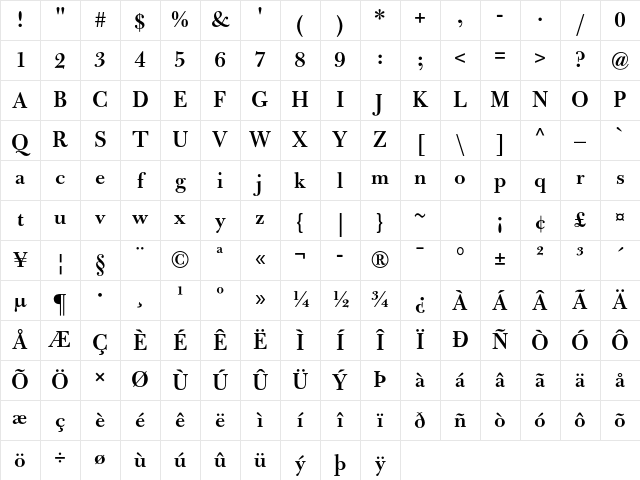
Bulmer MT Std Semibold
Style: Semibold
Designer: Morris Fuller Benton, William Martin
Design Context for Bulmer MT Std
Bulmer MT Std is a composed and adaptable typeface that performs quietly and consistently across a wide range of design contexts. Its bold stroke weight gives it real presence on the page.